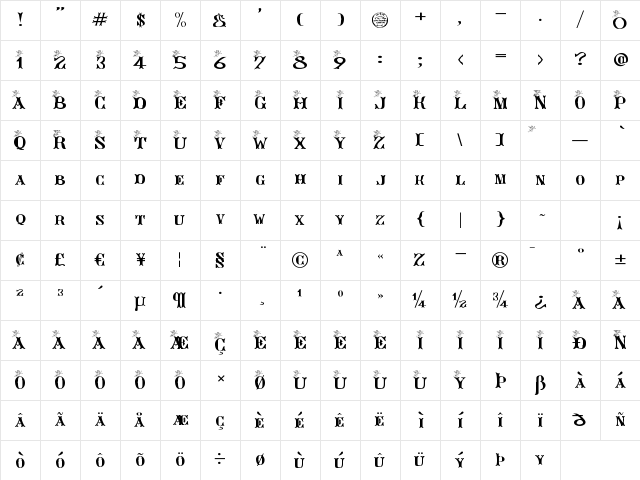
AngeGardien Regular
Complete AngeGardien Regular glyph index. Displaying only characters natively supported by AngeGardien Regular font.
Design Context for AngeGardien
AngeGardien is a composed and adaptable typeface that performs quietly and consistently across a wide range of design contexts.